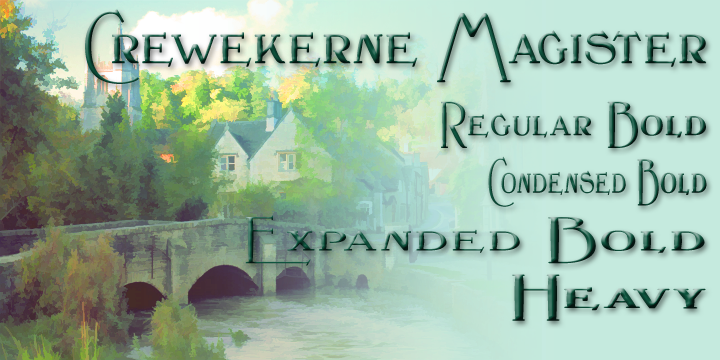
Crewekerne Magister is a historical font family. This typeface has seven styles and was published by Greater Albion Typefounders.
Crewekerne Magister is a family which speaks of the villages that are at the heart of English life. It is inspired by the arts and crafts movement of the early twentieth century, and is complimented by two of our other families, Crewekerne and Crewekerne Magna. Crewekerne Magister is a small capitals face which makes for especially distinctive headings and titles. Three widths - condensed, regular and expanded and three weights - regular bold and heavy are offered. Crewekerne Magister is especially good when used in poster and design work that needs a rustic hand crafted flair but still needs to be easily legible. Crewekene Magister is a fun family, a period family and a serious set of faces all in one.